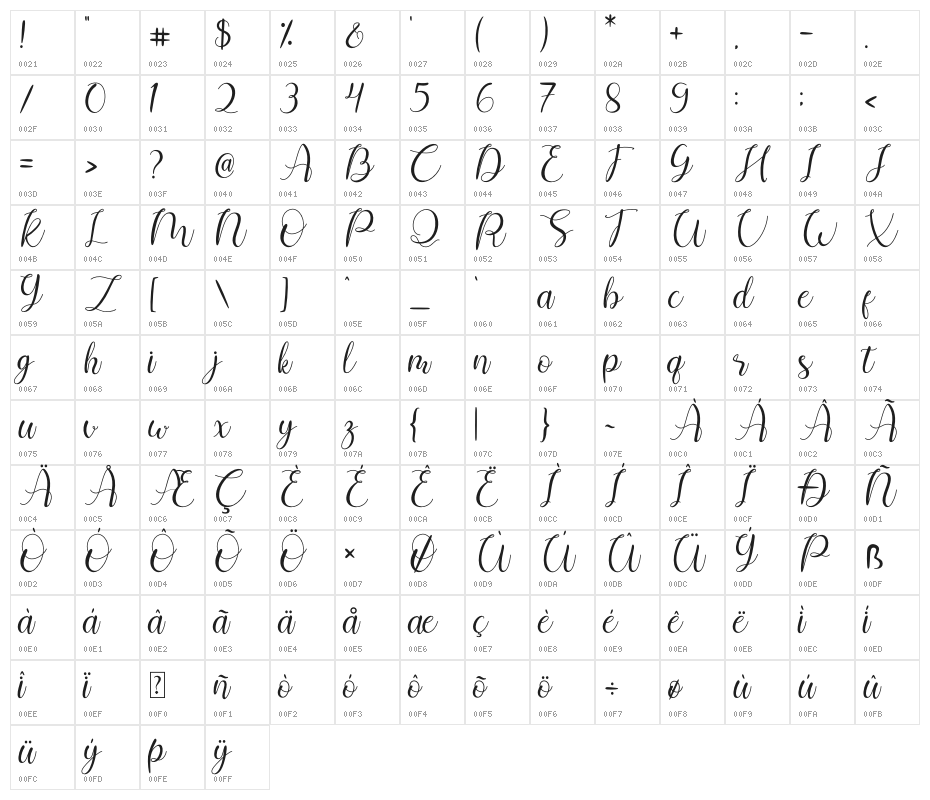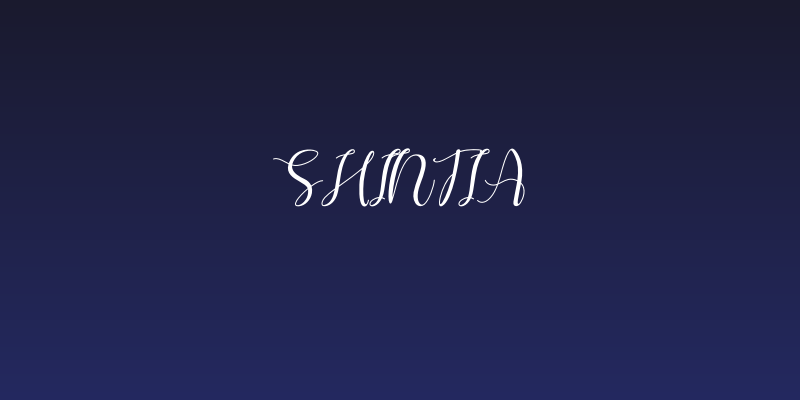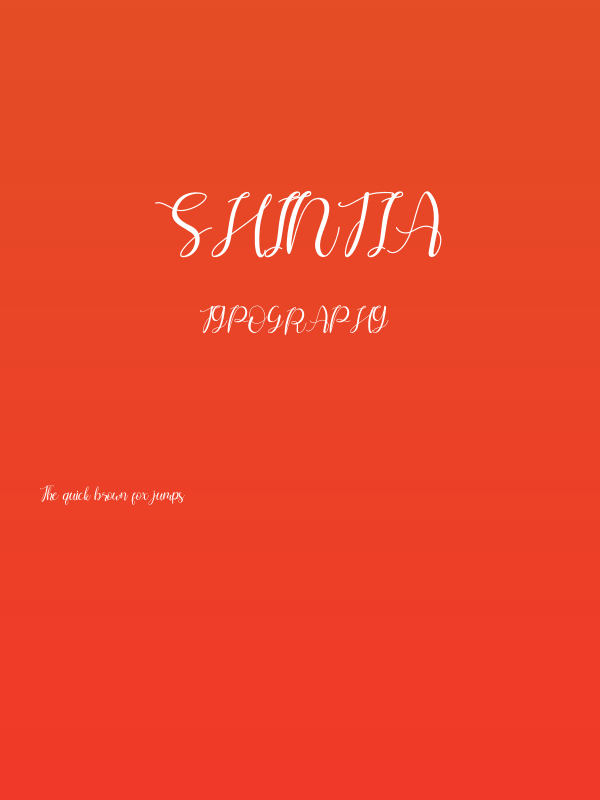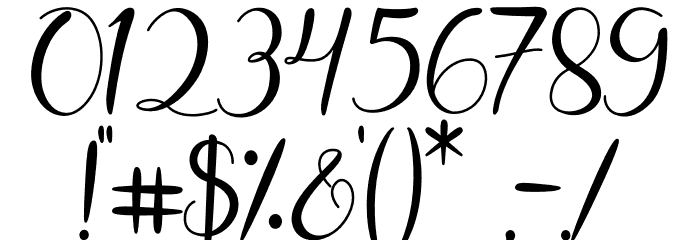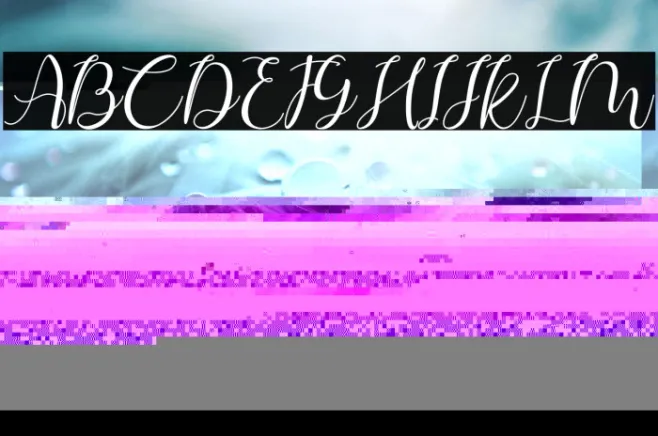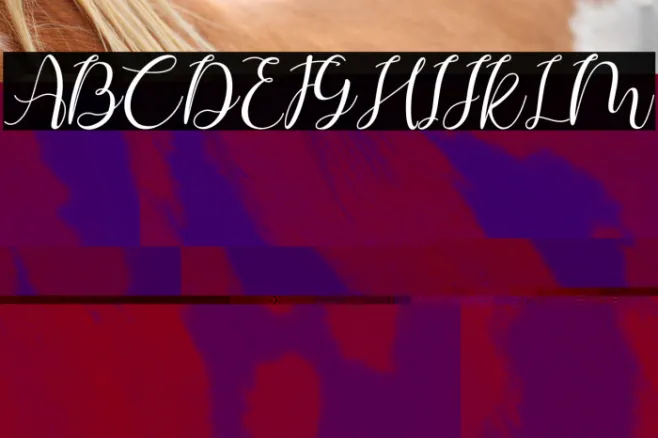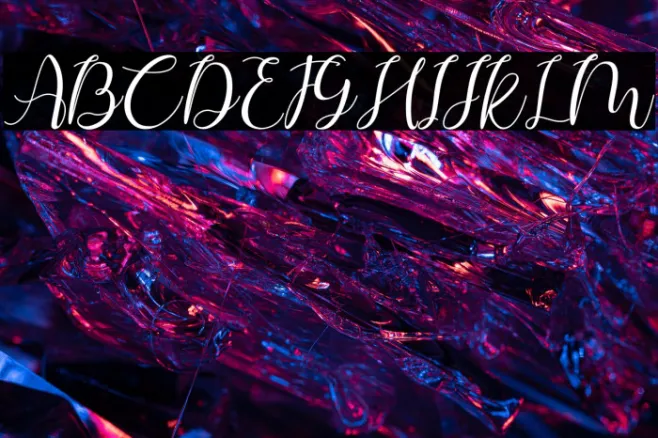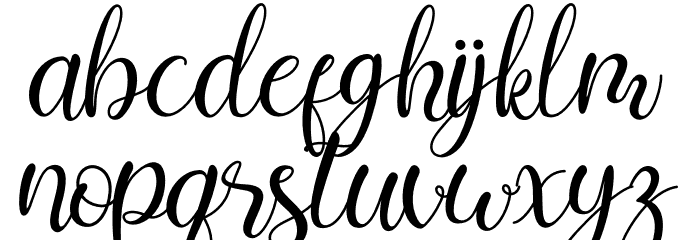
Shintia Font
Shintia Description
This elegant script font features fluid, cursive strokes that convey a sense of sophistication and grace. The uppercase letters are characterized by sweeping curves and loops, while the lowercase letters maintain a consistent flow with slightly more restrained flourishes. The numerals are designed with a similar style, ensuring a cohesive look across all characters. Special characters are thoughtfully integrated, maintaining the font's overall aesthetic. This font is perfect for projects that require a touch of elegance and personal flair.
| Overall Style | Elegant, Sophisticated |
| Proposed Projects | Ideal for wedding invitations, elegant branding, personal stationery, and decorative quotes. |